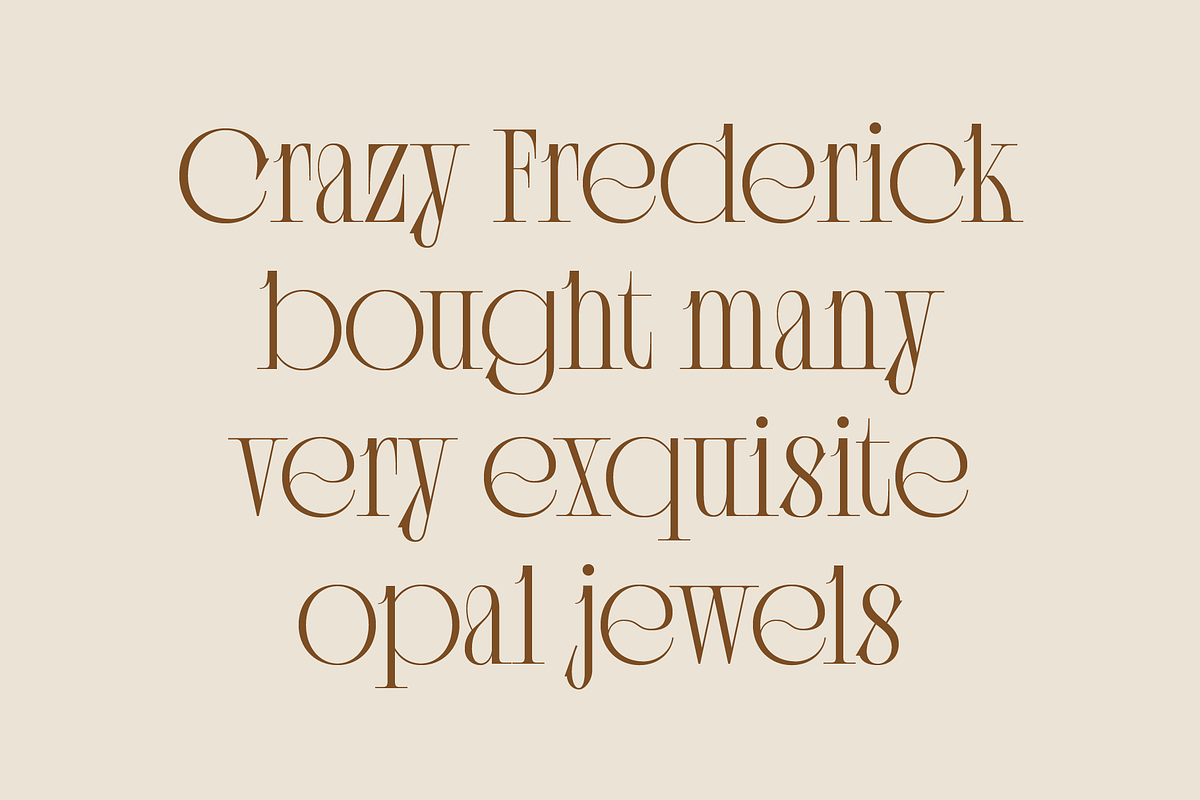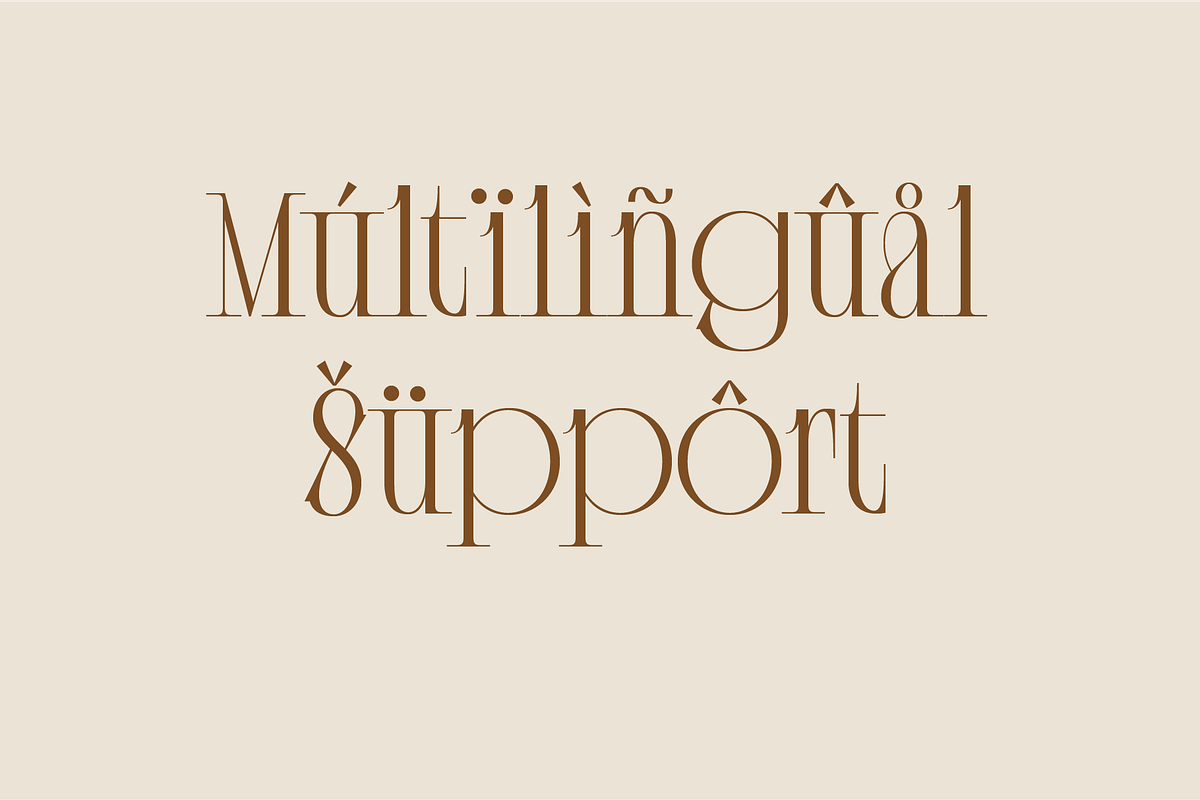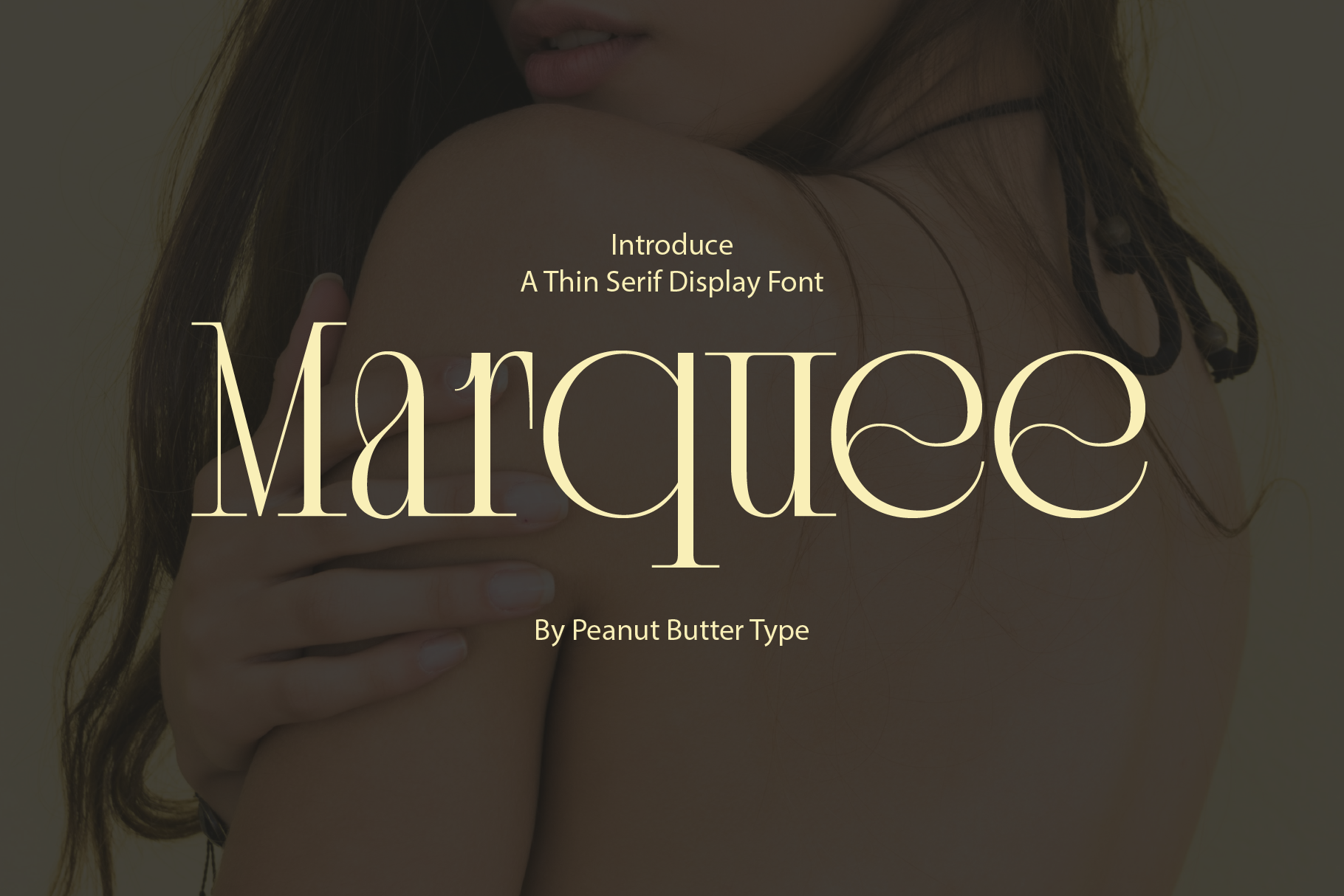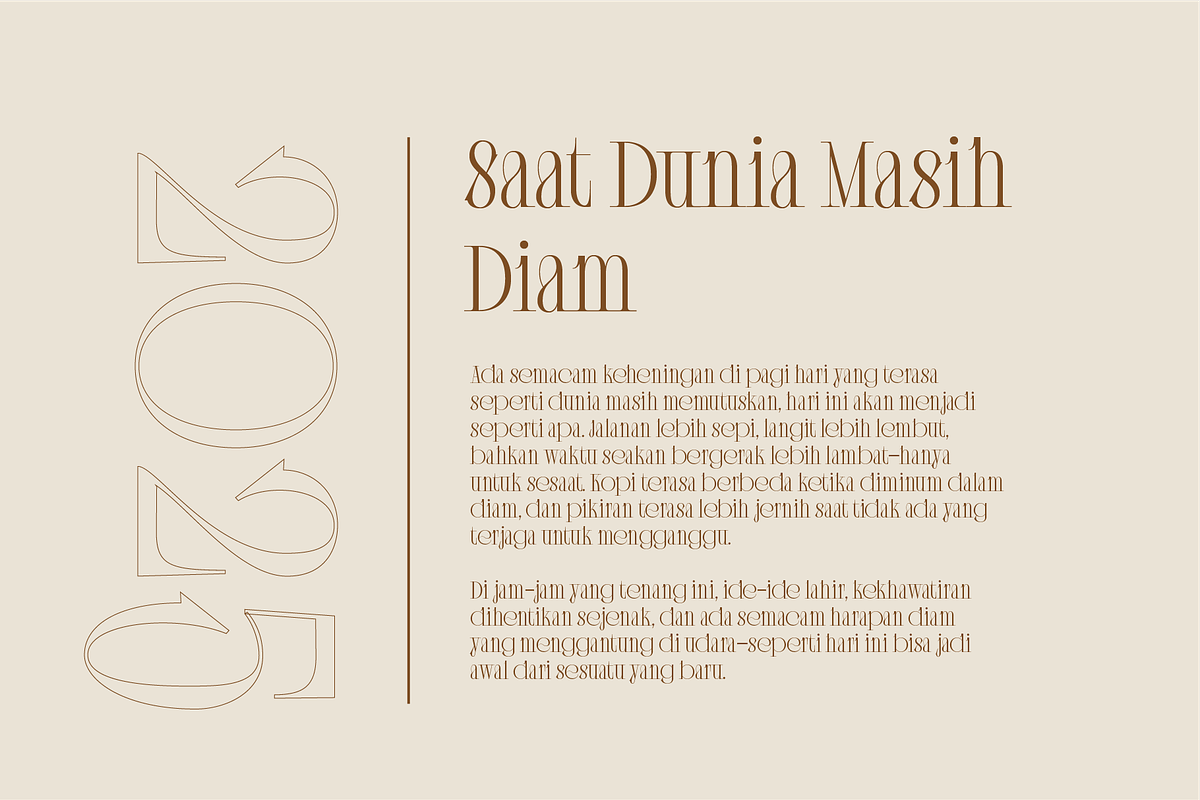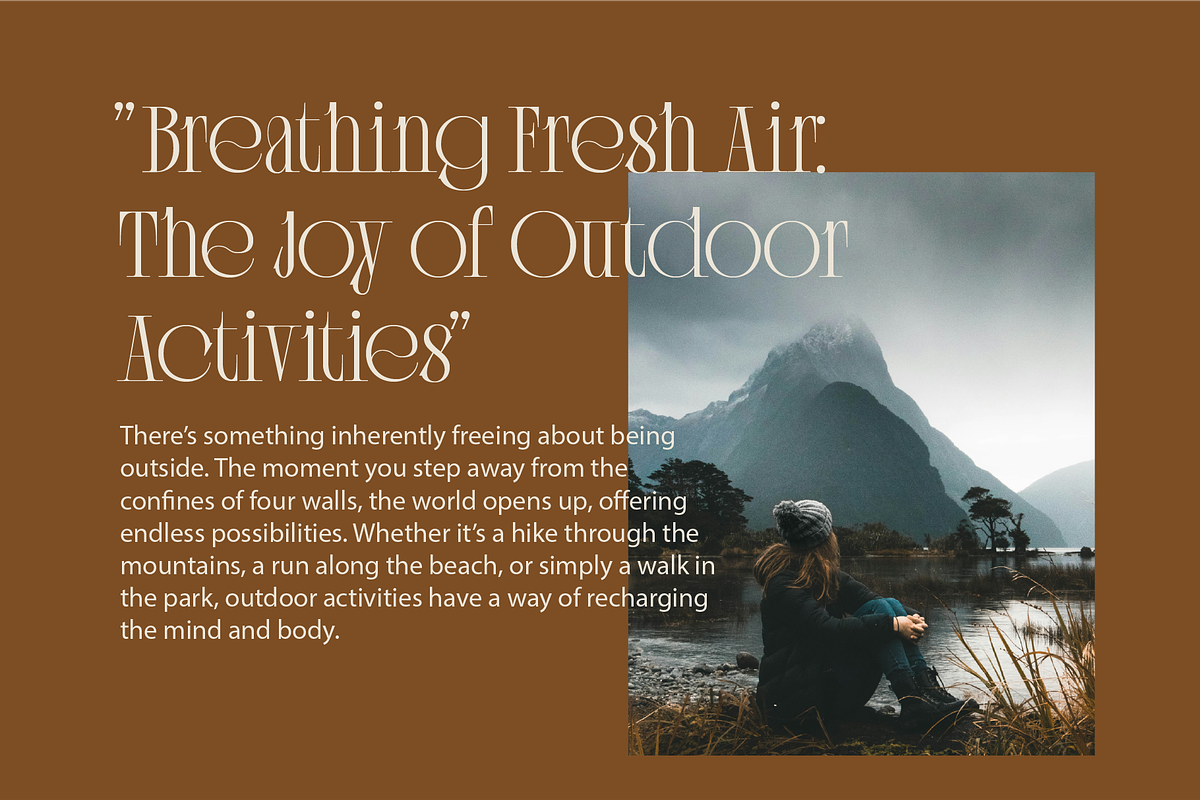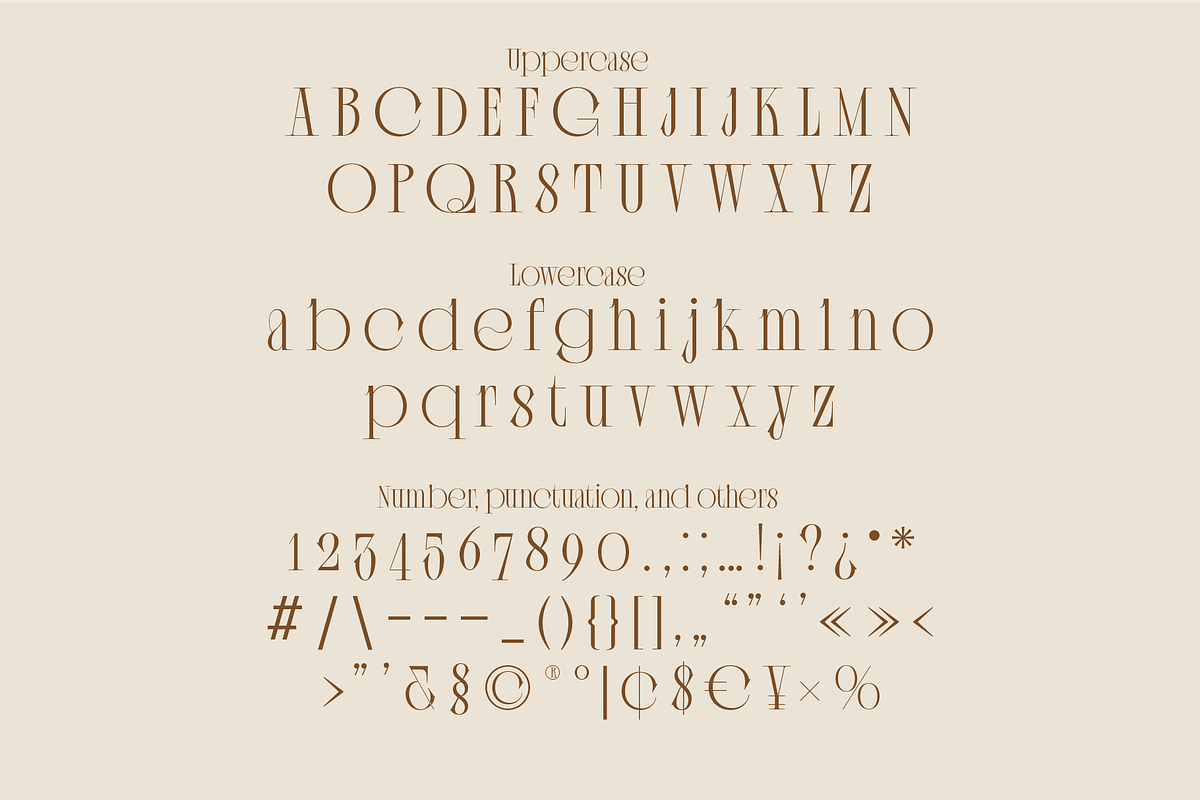
Marquee Serif Thin Display Font
"Elegance and sophistication blend seamlessly in the soft curves of the Marquee font, where each delicate serif adds a touch of timeless charm. Ideal for minimalistic designs, it commands attention without overwhelming the eyes, making it perfect for headlines and fine typography."